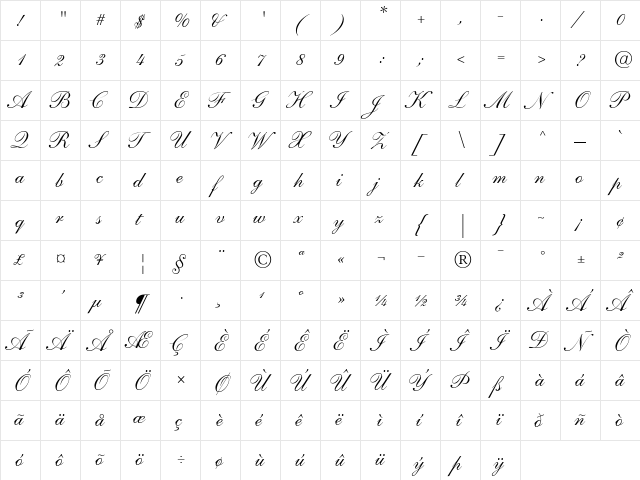
ShelleyAndanteScript RomanItalic
Design Context for ShelleyAndanteScript Typeface
ShelleyAndanteScript brings a calligraphic fluidity to the page — its connecting strokes and expressive curves give it an unmistakably human quality.
Font Pairing: Combine ShelleyAndanteScript with a simple geometric sans for maximum contrast — the tension between flowing curves and clean structure is a classic typographic pairing.
Pro Tip: Pair ShelleyAndanteScript with a clean sans-serif for supporting text. The contrast between fluid script and geometric structure creates an elegant typographic hierarchy.